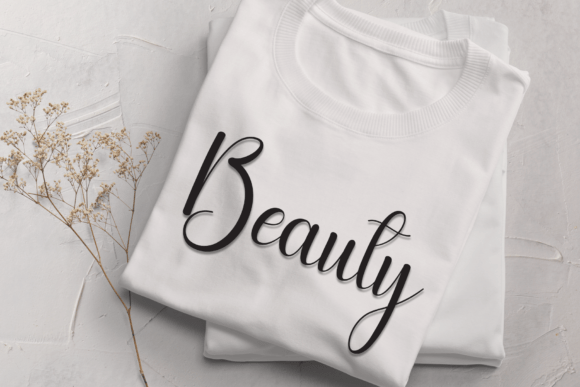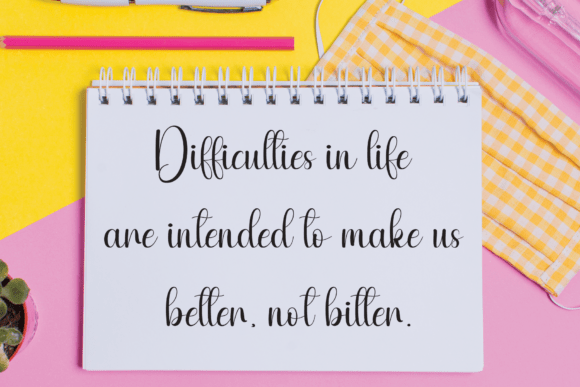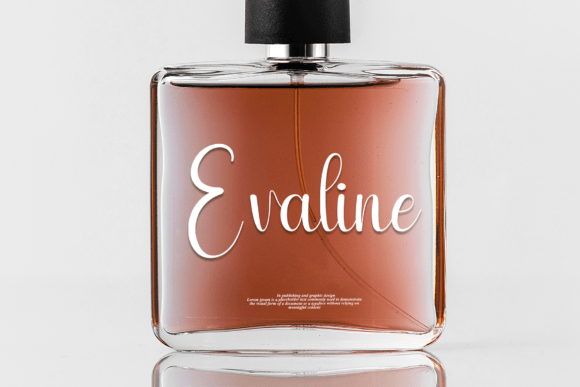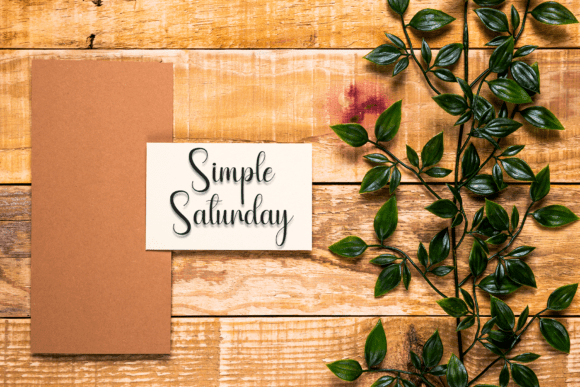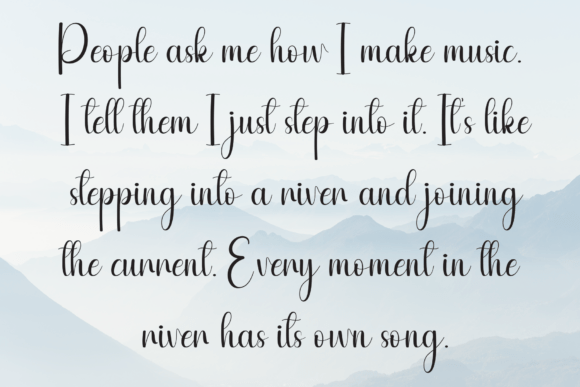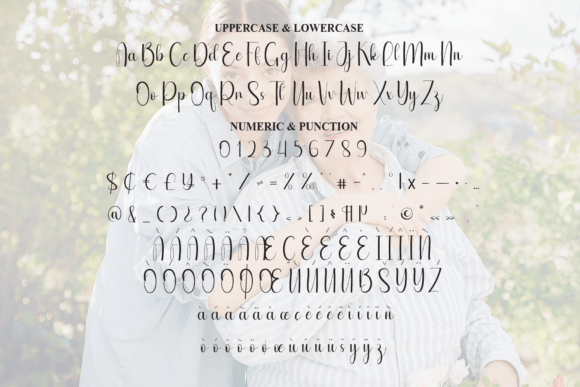
Auntie Font: Elevate Your Designs with Elegance and Modern Flair
In the world of typography, fonts play a crucial role in conveying the tone and personality of a brand, project, or message. For designers and crafters seeking a typeface that exudes sophistication, warmth, and a touch of modernity, Auntie Font is an exceptional choice. This stylish handwritten script font seamlessly blends elegance with a contemporary flair, making it perfect for a wide range of applications, from branding and invitations to social media and beyond.
The Characteristics of Auntie Font
Auntie Font is distinguished by its flowing strokes and organic curves, which give it a unique, handcrafted feel. This font’s design is characterized by:
- Flowing Strokes: The fluidity of Auntie Font’s strokes adds a dynamic, elegant quality to text, making it perfect for titles, headings, and short paragraphs.
- Organic Curves: The natural, curved lines of the font bring a sense of warmth and approachability, ideal for creating a personal connection with the audience.
- Elegant and Modern: Auntie Font strikes a perfect balance between classic sophistication and modern simplicity, making it versatile for various design needs.
Applications of Auntie Font
The versatility of Auntie Font makes it suitable for a multitude of design projects. Here are some of the key areas where this font truly shines:
- Branding: Use Auntie Font to give your brand a refined, personalized identity. Its unique charm can help your brand stand out in a crowded market.
- Invitations: Whether it’s a wedding invitation, a birthday party, or any other special occasion, Auntie Font adds a touch of elegance and sophistication.
- Social Media: Elevate your social media posts and stories with a font that is both stylish and easy to read. Auntie Font can help increase engagement by adding a personal touch to your content.
- Packaging: For crafters and small business owners, Auntie Font can add a professional, bespoke feel to product labels and packaging.
Why Choose Auntie Font?
With so many fonts available, what sets Auntie Font apart? Here are a few reasons why designers and crafters are gravitating towards this stylish script font:
- Unique yet Readable: Auntie Font offers a distinctive look without compromising on readability, making it perfect for both digital and print applications.
- Time-Saving: With its comprehensive set of characters and styles, Auntie Font allows designers to work more efficiently, saving time on font selection and editing.
- Support for Multiple Languages: For global projects, Auntie Font provides support for multiple languages, ensuring that your message can reach a wider audience.
Tips for Using Auntie Font Effectively
To maximize the impact of Auntie Font in your designs, consider the following tips:
- Pair with Complementary Fonts: For body text or secondary headings, pair Auntie Font with clean, sans-serif fonts to create visual contrast and hierarchy.
- Adjust Letter Spacing: For titles or short phrases, slightly adjust the letter spacing to enhance the font’s elegant and modern feel.
- Experiment with Colors: While Auntie Font looks stunning in classic black and white, don’t be afraid to experiment with colors that match your brand’s palette or the project’s theme.
Auntie Font is more than just a typeface; it’s a design element that can transform your projects with its elegance, modernity, and charm. Whether you’re a professional designer or a DIY crafter, this stylish handwritten script font offers a simple yet effective way to add a personal, refined touch to your work. With its wide range of applications and user-friendly design, Auntie Font is poised to become a favorite in the world of typography.